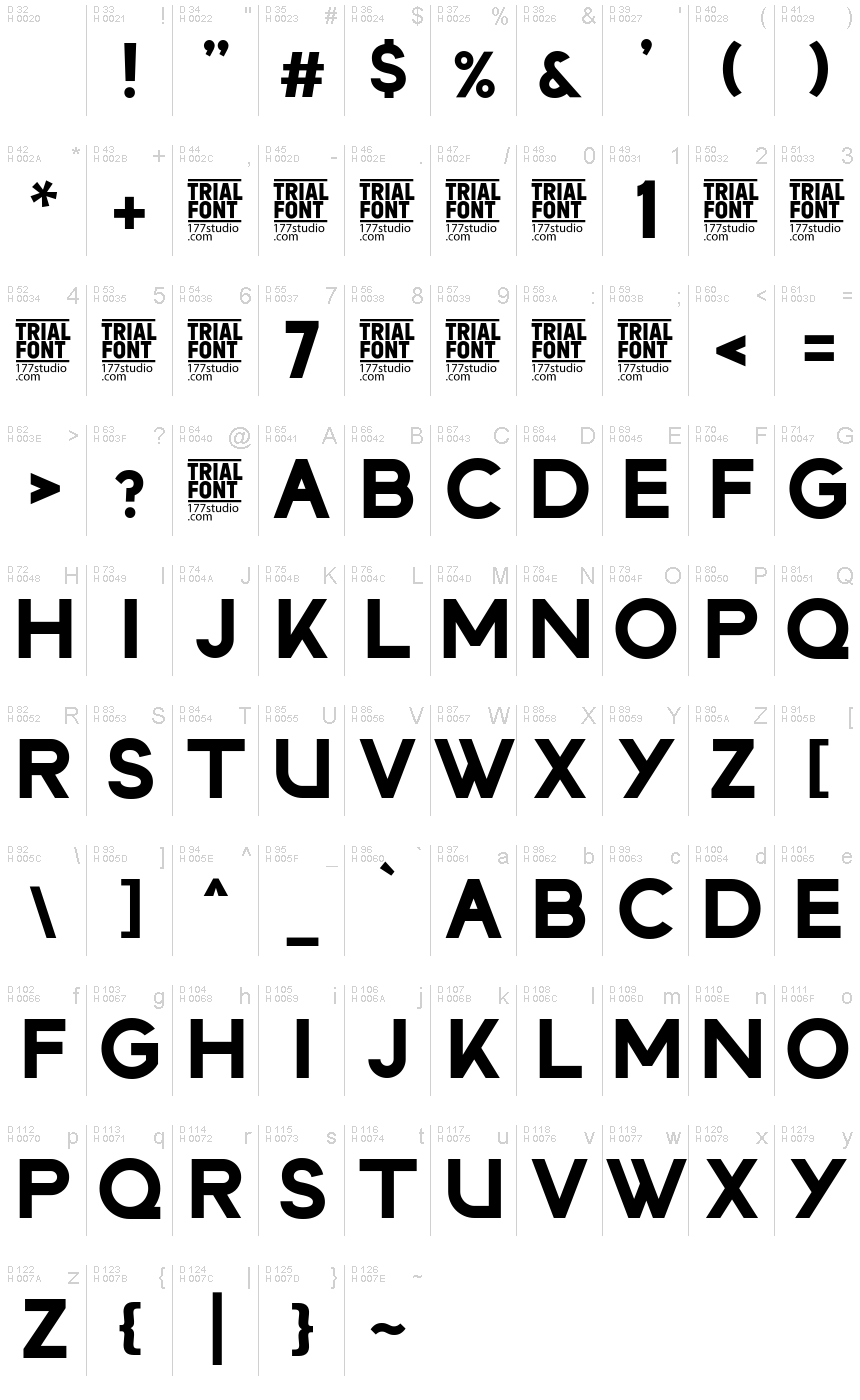
Largest Genome by 177Studio is a captivating sans-serif font that exudes a sense of modern sophistication. Its clean lines and minimalist aesthetic create a sleek and polished appearance, perfect for a wide range of design applications. The font's balanced proportions and subtle curves give it a sense of elegance and refinement, making it an excellent choice for branding, editorial layouts, and digital interfaces.
Largest Genome's versatility shines through its ability to convey both authority and approachability. Its versatile character set and adaptable design make it suitable for a variety of projects, from high-end corporate communications to creative personal projects. Whether you're crafting a contemporary website, designing striking event materials, or curating a modern publication, Largest Genome by 177Studio offers a compelling typographic solution that will elevate the overall visual impact.